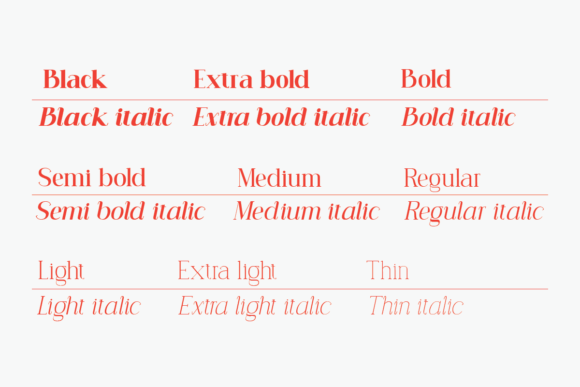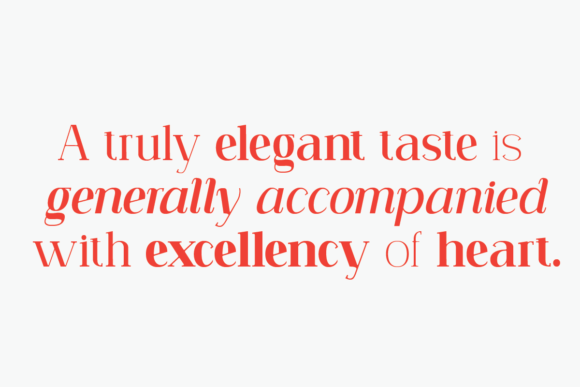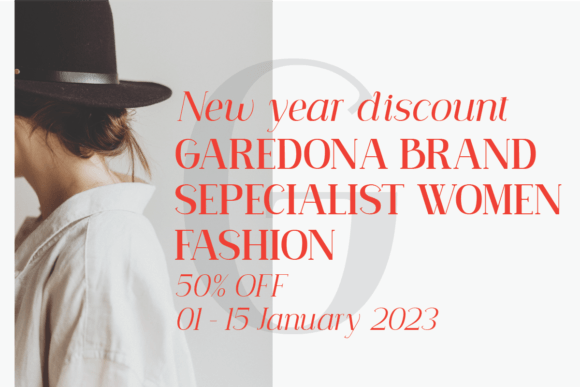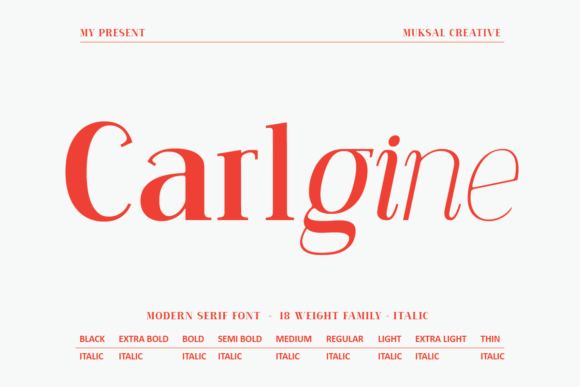
Introduction to Carlgine Font
Carlgine is a unique and modern family of serif fonts.
Carlgine has 18 families starting from the small thin to the largest black This typeface is versatile and can be used successfully in magazines, posters, branding, websites, etc.